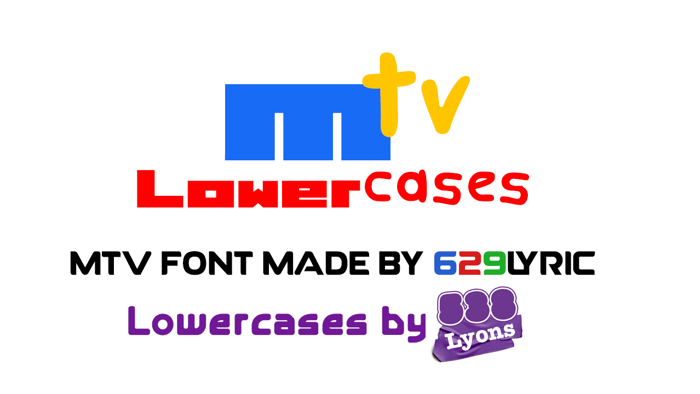
MTV Lowercase 1 Font
Jack Lyric West (a.k.a 629Lyric) has made the MTV font, he made the very first one one year ago. And he did a 3rd version of this. So I thought I'd do lowercases of this font. The 1st one is the M one, and the 2nd is the TV one.
Type "^" For MTV Logo